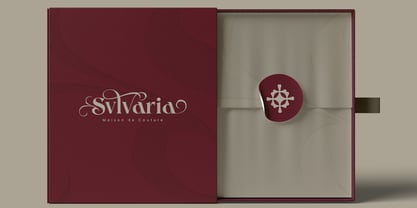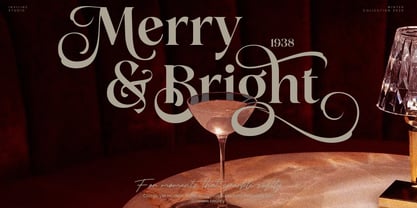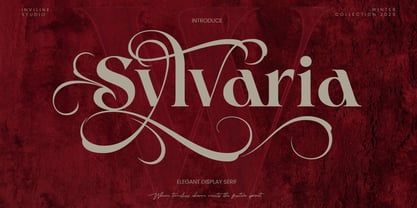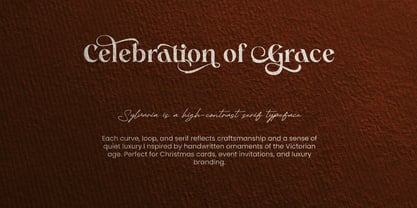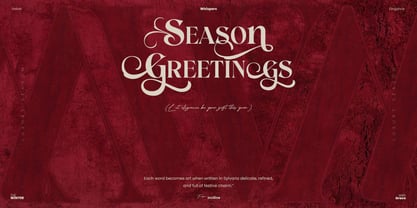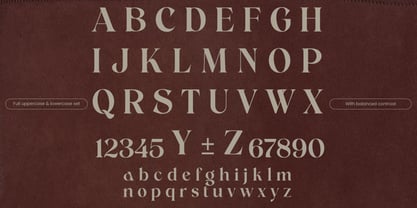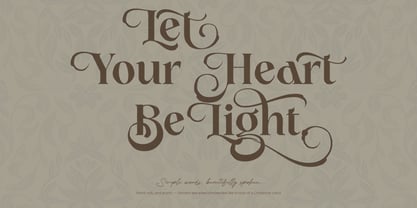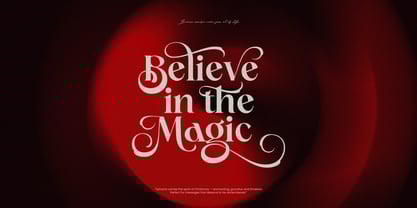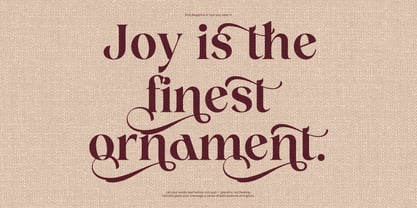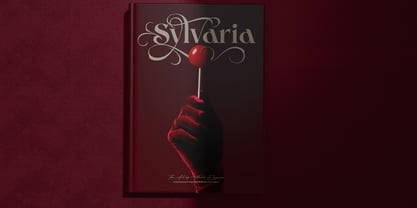
Sylvaria
by Inviline
The Sylvaria Font Family was designed by Virgiawan Listanto and published by Inviline. Sylvaria contains 1 styles.
Sylvaria is a high-contrast elegant serif typeface that blends timeless craftsmanship with festive sophistication, featuring complete uppercase & lowercase characters, numerals, and stylish swashes for graceful typography. Perfect for Christmas cards, luxury invitations, seasonal packaging, boutique branding, elegant social media posts, and refined editorial layouts—Sylvaria adds a touch of vintage charm and delicate flourish to any message that deserves to feel enchanting, graceful, and unforgettable.